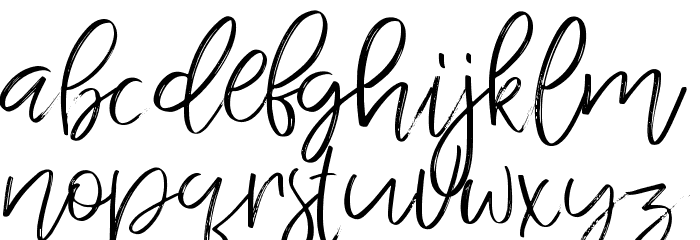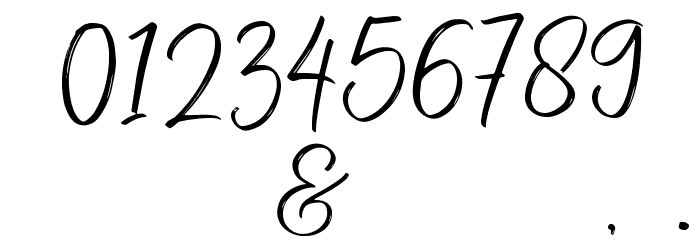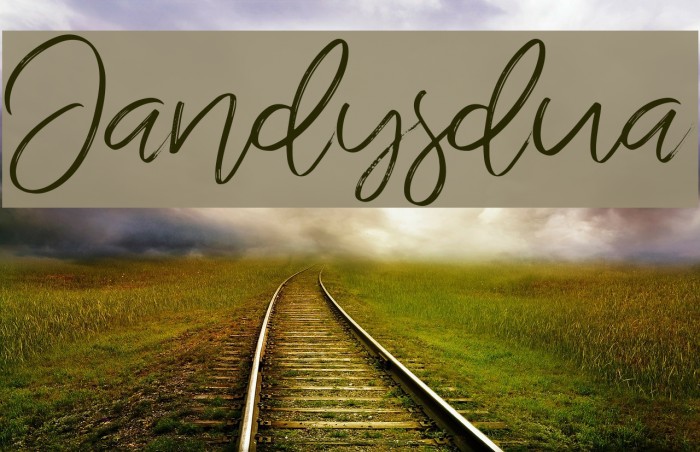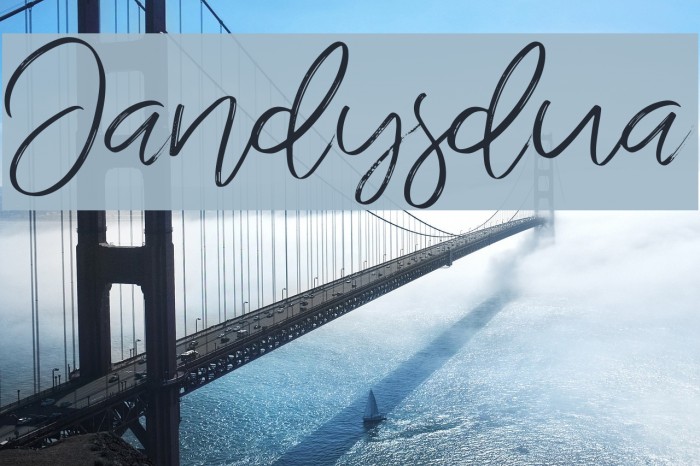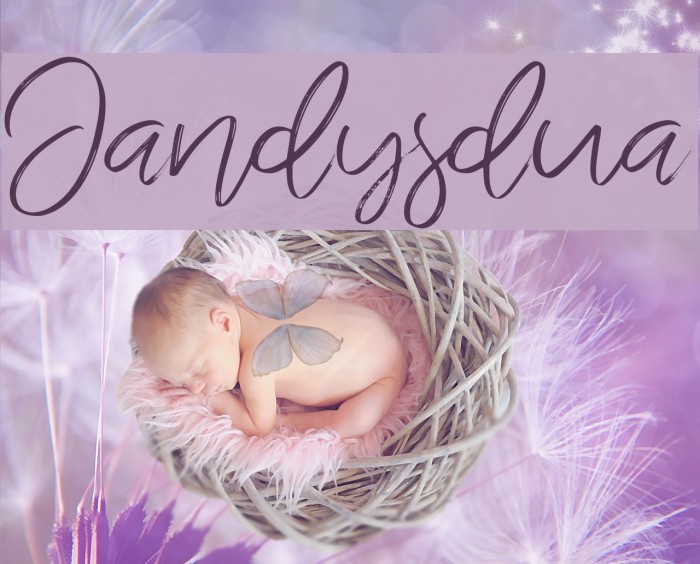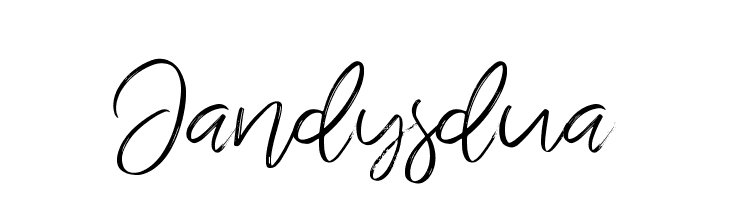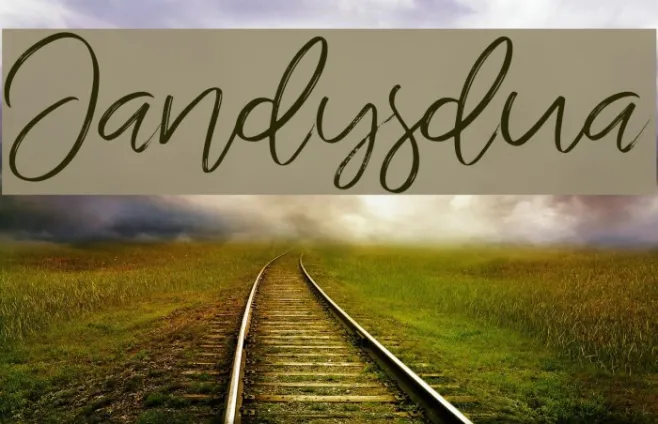
Jandysdua Font
This font exudes a lively and expressive handwritten style, characterized by its fluid and dynamic strokes. The letters are crafted with a natural flow, giving the impression of being penned with a brush or a calligraphy pen. The uppercase letters are bold and slightly larger, while the lowercase letters maintain a consistent rhythm and elegance. The numbers and special characters follow the same aesthetic, ensuring a cohesive look across all elements. The overall appearance is both artistic and approachable, making it suitable for projects that require a personal touch.
A lively, expressive handwritten font with fluid, dynamic strokes.
- Proposed Projects: Ideal for wedding invitations, greeting cards, branding, and social media graphics.
- Use Case: Logos, Headlines, Invitations